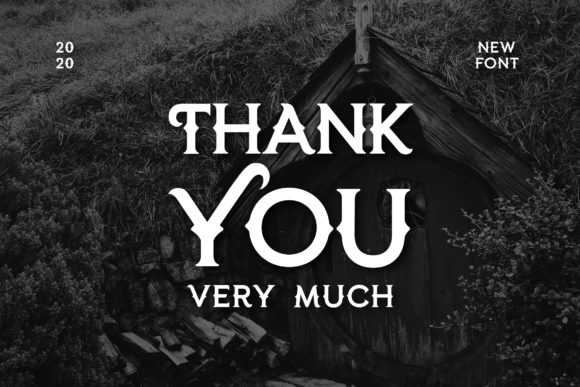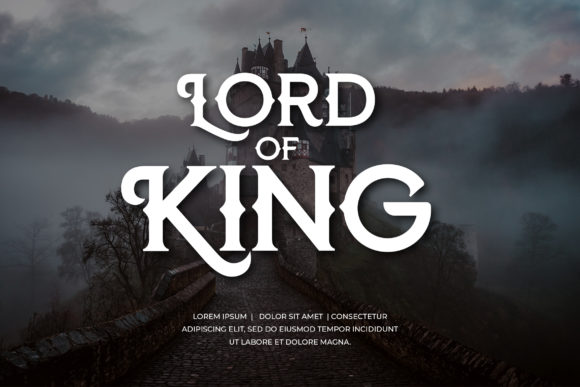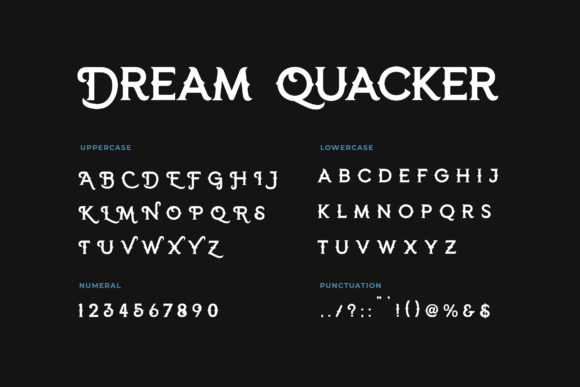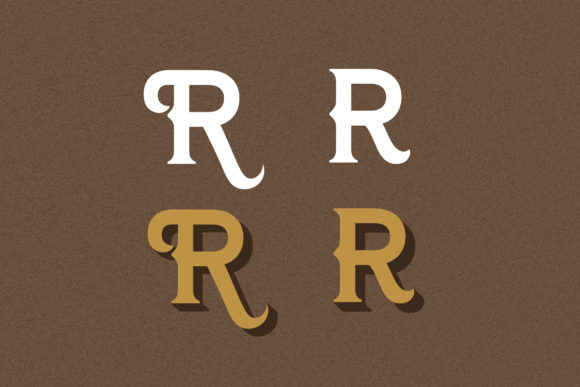
Dream Quacker Font: A Bold and Retro Style Display Font
Are you looking for a font that can add a touch of nostalgia and personality to your designs? Look no further than the Dream Quacker font. This bold and retro style display font is perfect for designers and crafters who want to create eye-catching and memorable designs.
What is Dream Quacker Font?
Dream Quacker is a bold and retro style display font that reads as strong, confident, and dynamic. Its unique and quirky design makes it perfect for adding a touch of nostalgia and character to your designs. Whether you’re working on a branding project, a poster, or a digital graphic, Dream Quacker font is sure to make your design stand out.
Key Features of Dream Quacker Font
• Bold and Retro Style: Dream Quacker font has a bold and retro style that is perfect for creating eye-catching designs.
• Strong and Confident: The font reads as strong, confident, and dynamic, making it perfect for designs that need to make a statement.
• Nostalgic Character: Dream Quacker font has a unique and quirky design that adds tons of nostalgic character to your designs.
• Display Font: This font is specifically designed as a display font, making it perfect for headlines, titles, and other display text.
Uses of Dream Quacker Font
Dream Quacker font is a versatile font that can be used in a variety of design projects. Here are some ideas for using this font:
• Branding and Logos: Use Dream Quacker font to create a bold and memorable logo for your brand.
• Posters and Flyers: This font is perfect for creating eye-catching posters and flyers that need to grab attention.
• Digital Graphics: Use Dream Quacker font to add a touch of personality to your digital graphics, such as social media graphics and blog posts.
• Crafting and Scrapbooking: This font is also perfect for crafters and scrapbookers who want to add a touch of nostalgia and character to their projects.
Tips for Using Dream Quacker Font
Here are some tips for using Dream Quacker font effectively in your designs:
• Use it as a Display Font: Dream Quacker font is specifically designed as a display font, so use it for headlines, titles, and other display text.
• Pair it with a Simple Font: Pair Dream Quacker font with a simple font to create contrast and make your design stand out.
• Experiment with Colors: This font looks great in bold and bright colors, so don’t be afraid to experiment with different colors.
Dream Quacker font is a bold and retro style display font that is perfect for designers and crafters who want to add a touch of nostalgia and personality to their designs. With its strong and confident design, this font is sure to make your design stand out. Whether you’re working on a branding project, a poster, or a digital graphic, Dream Quacker font is a great choice.